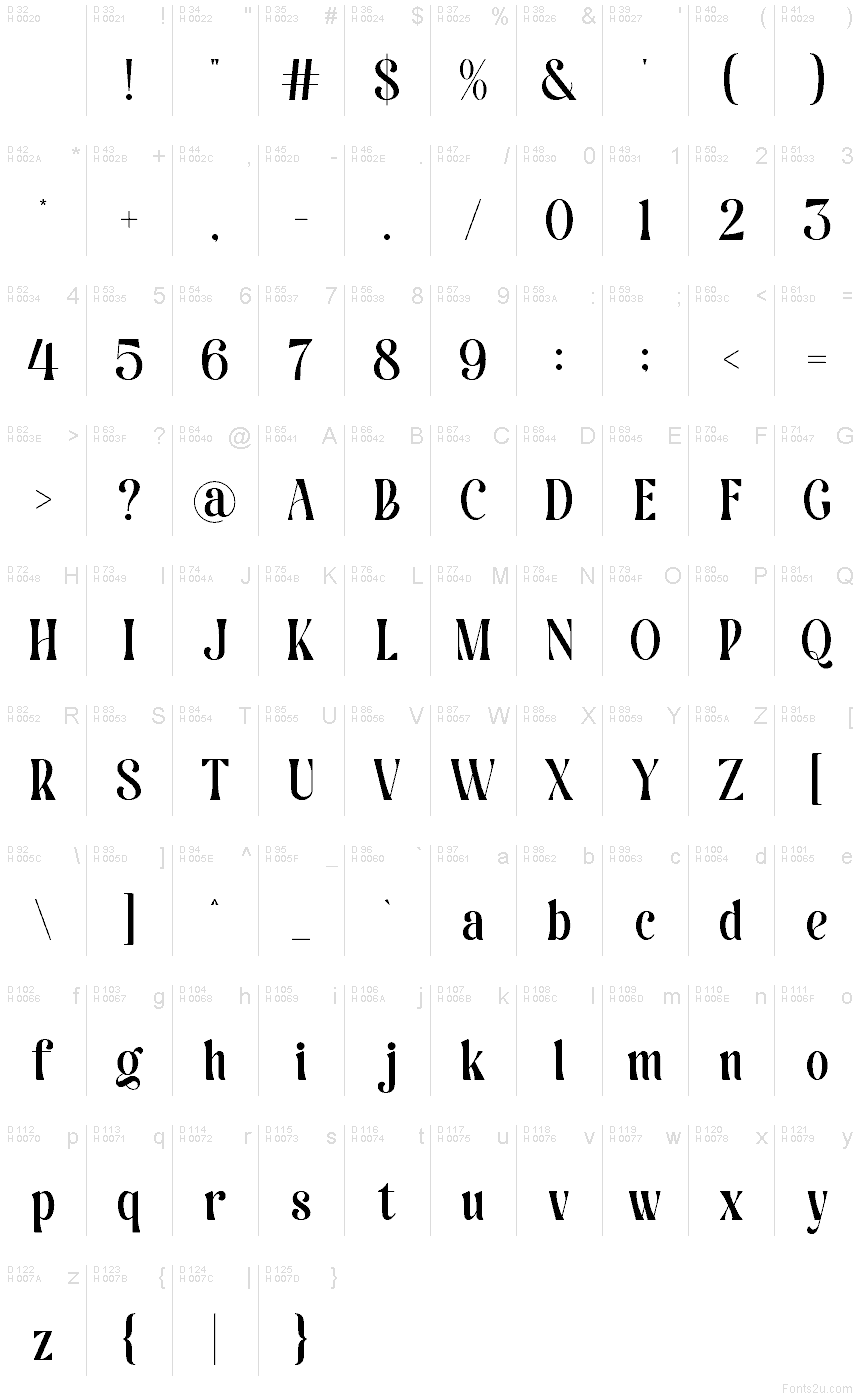
Blakes Regular
Blakes font by Ermedia Studio is a free vintage display font. It’s driven by bold, inky contrasts and those sculpted, crescent cut-ins that carve light into each letter, giving the word a rhythmic sway. The forms feel hand-polished—sleek stems, soft bowls, and knife-sharp wedges—so headlines look lush without turning fussy.
Using Blakes, you get dramatic presence that still reads clean at a glance, which shines on boutique logos, wine or candle labels, cafe menus, event posters, editorial covers, and hero headlines on websites. Set it large with a touch of extra tracking to let the curves breathe, and pair this free font with a quiet neo-grotesque or minimalist serif for body copy.